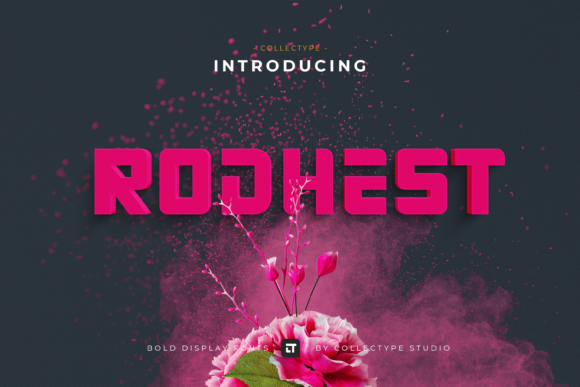
Introduction to Rodhest Font
As a designer, have you ever found yourself stuck in a creative rut, struggling to convey the futuristic essence of your project? Perhaps you’re working on a sci-fi themed campaign or an innovative tech startup’s branding, and you need a font that can elevate your message. That’s where the Rodhest Font comes in – a game-changing display font that’s about to revolutionize the way you design.
With its sleek, high-quality design, Rodhest Font is perfect for adding a touch of futurism to your creative project. Whether you’re looking for a bold, eye-catching headline or a subtle accent to enhance your design, this versatile font is sure to deliver. And the best part? It’s available for a free download, making it an invaluable resource for designers of all levels.
Key Features of Rodhest Font
- High-quality design resource with a unique, modern aesthetic, ideal for creative projects.
- Designed to be highly legible, making it an excellent choice for body text, headings, and titles in creative projects.
- Includes a comprehensive character set, supporting a wide range of languages and special characters.
Honest Review: Rodhest Font
I recently came across the Rodhest Font, and I’m excited to share my thoughts on this design resource. As a designer, I’m always on the lookout for high-quality fonts that can elevate my creative projects. The Rodhest Font definitely caught my eye, and I decided to give it a try.
- ✨ Unique design style: The Rodhest Font has a distinctive, modern aesthetic that sets it apart from other fonts.
- ⚠️ Limited font styles: The Rodhest Font is available in a limited number of styles, which may not be suitable for complex design projects.
- ⚠️ Not ideal for small text: The font can be a bit too bold for small text, which may affect readability.
Overall, I’m impressed with the Rodhest Font, but it may not be the best choice for every design project. If you’re looking for a unique, modern font with a transparent background, the Rodhest Font is definitely worth considering. However, if you need a font with more versatility or a wider range of styles, you may want to explore other options.
The Rodhest Font is a versatile and high-quality design resource ideal for creative projects that require a unique touch. With its transparent background, this font can be easily integrated into various design platforms.
The Rodhest Font is suitable for various design projects, including logo design, typography, and creative writing. Its unique design and transparent background make it an excellent choice for designers looking for a high-quality font.